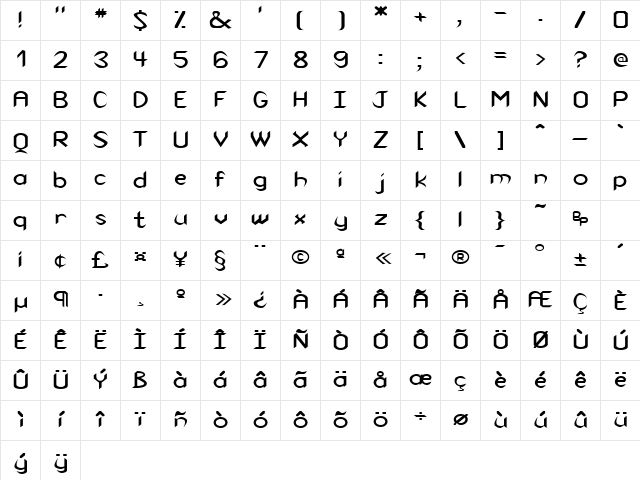
JayhawkExpand Normal
Design Context for JayhawkExpand
JayhawkExpand is a composed and adaptable typeface that performs quietly and consistently across a wide range of design contexts.
Pro Tip: Use JayhawkExpand in both headline and body roles to test its range before committing to a single application.